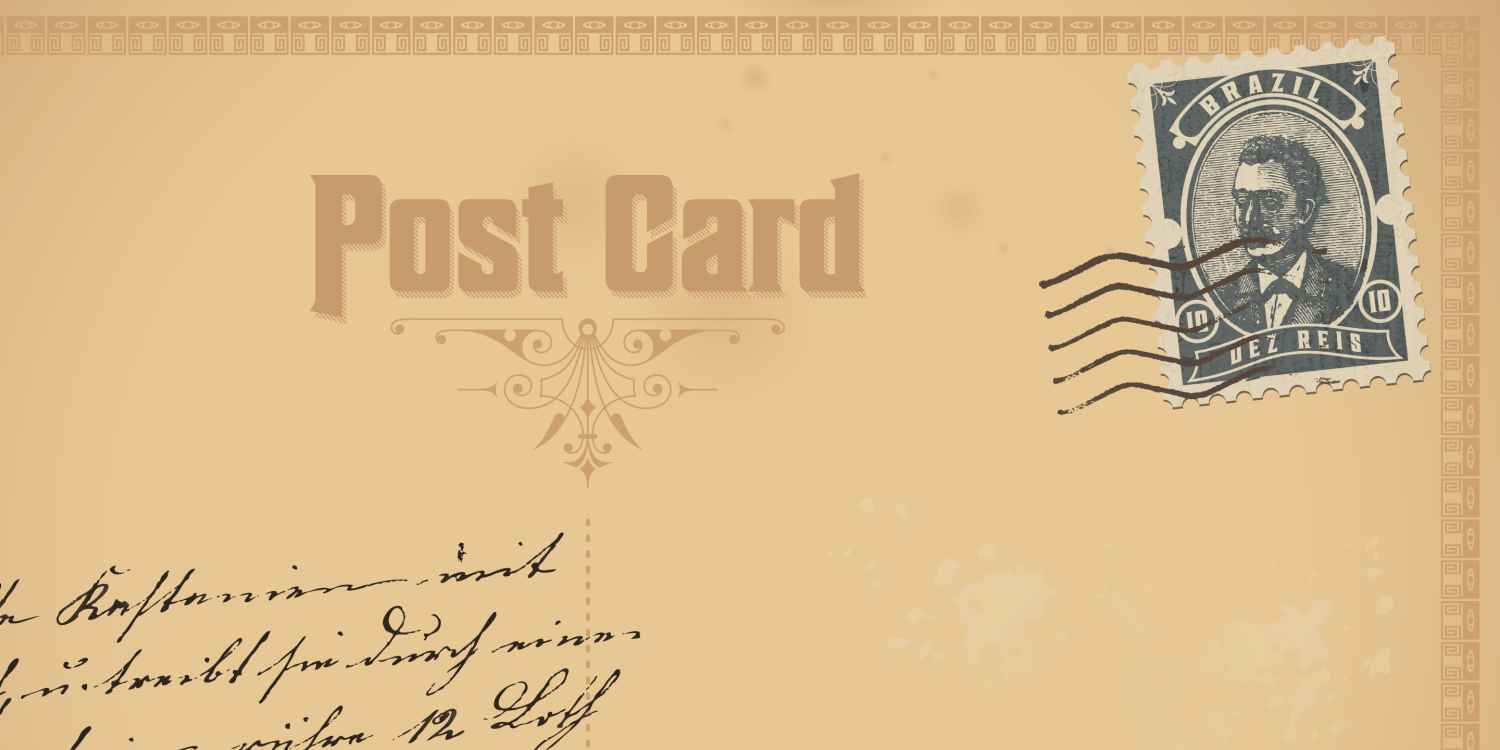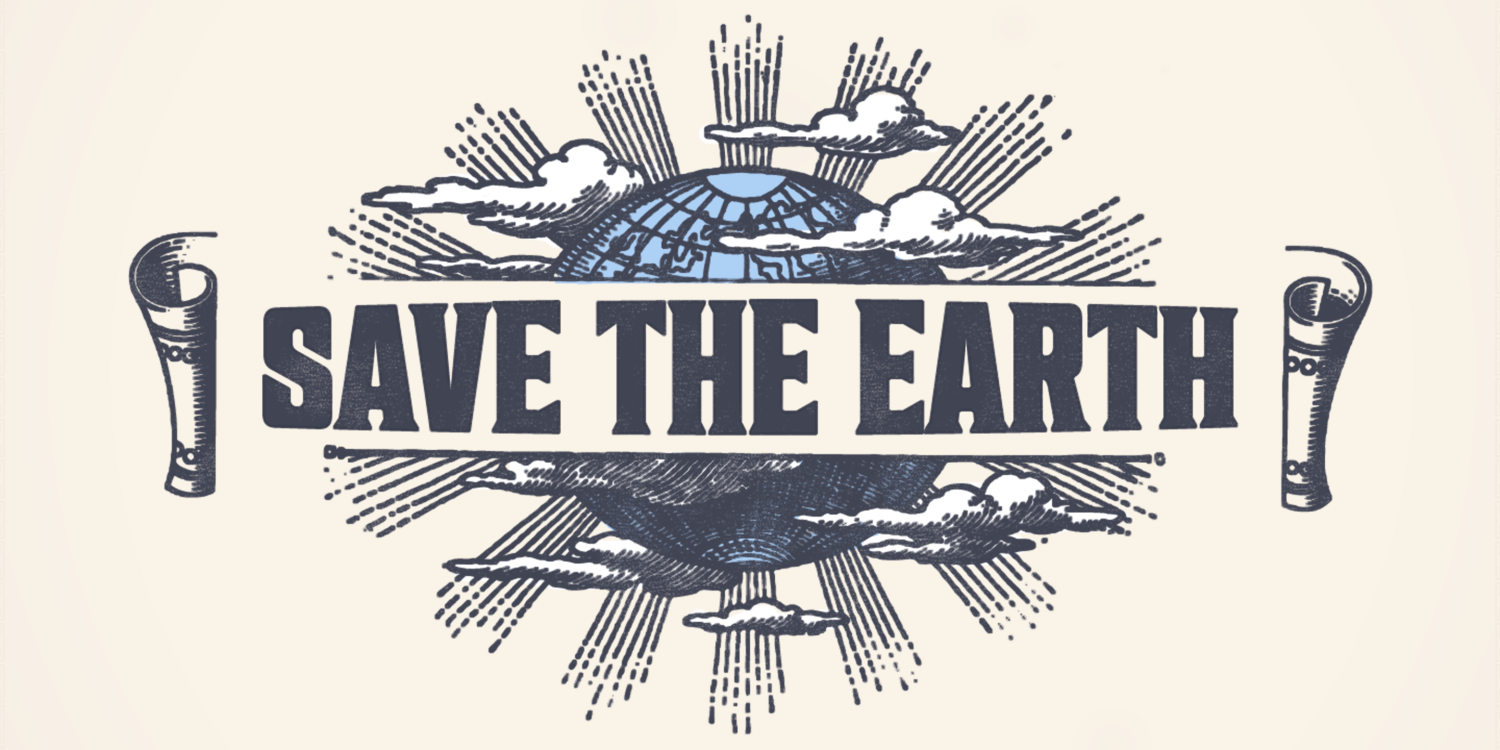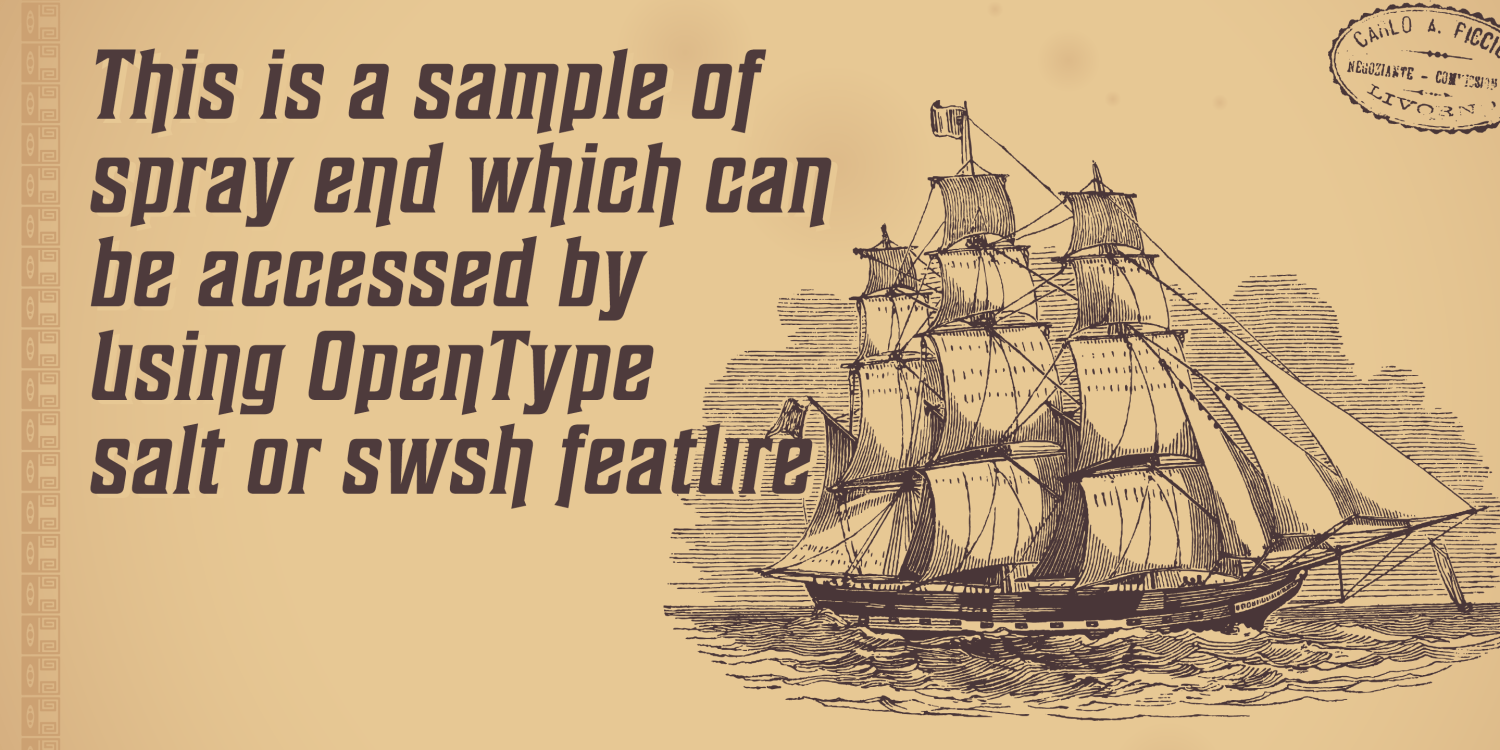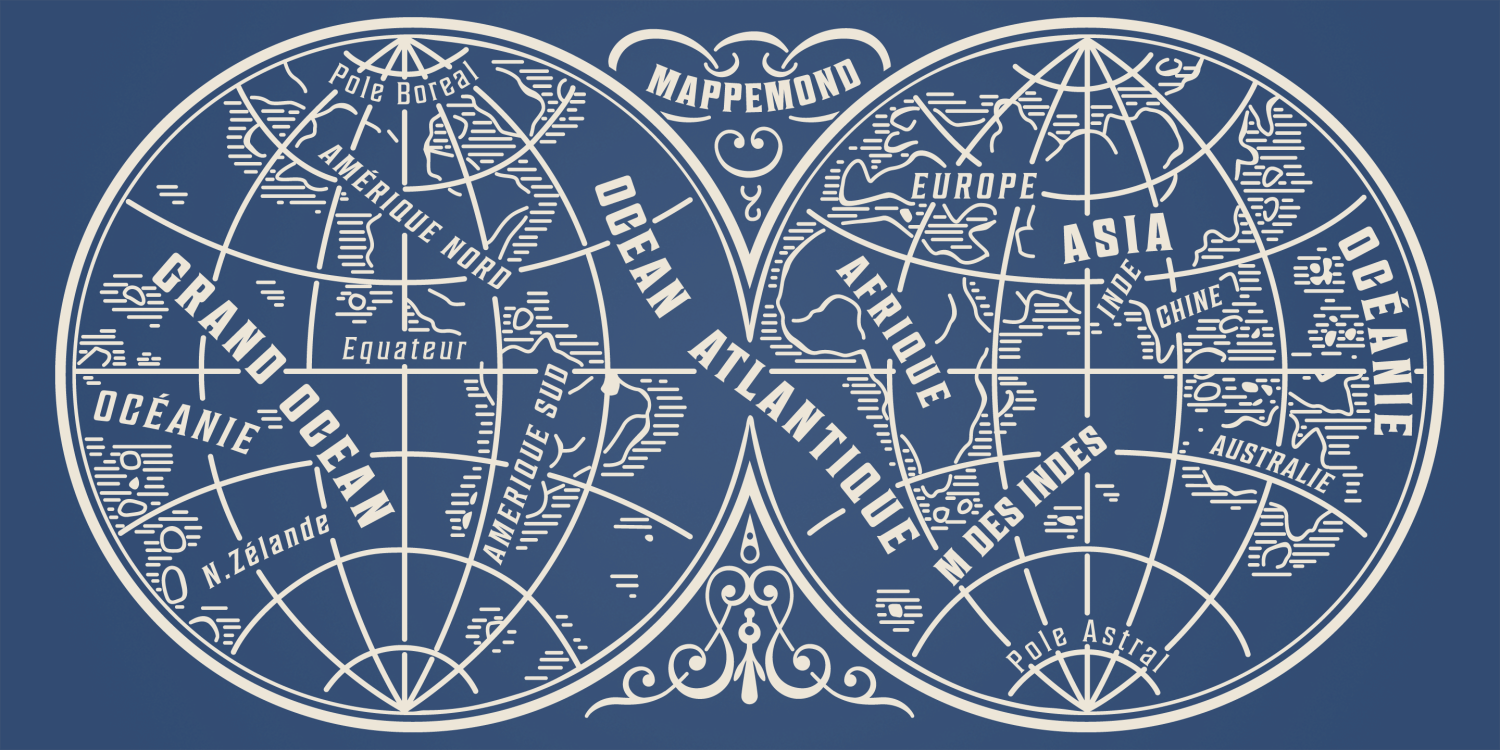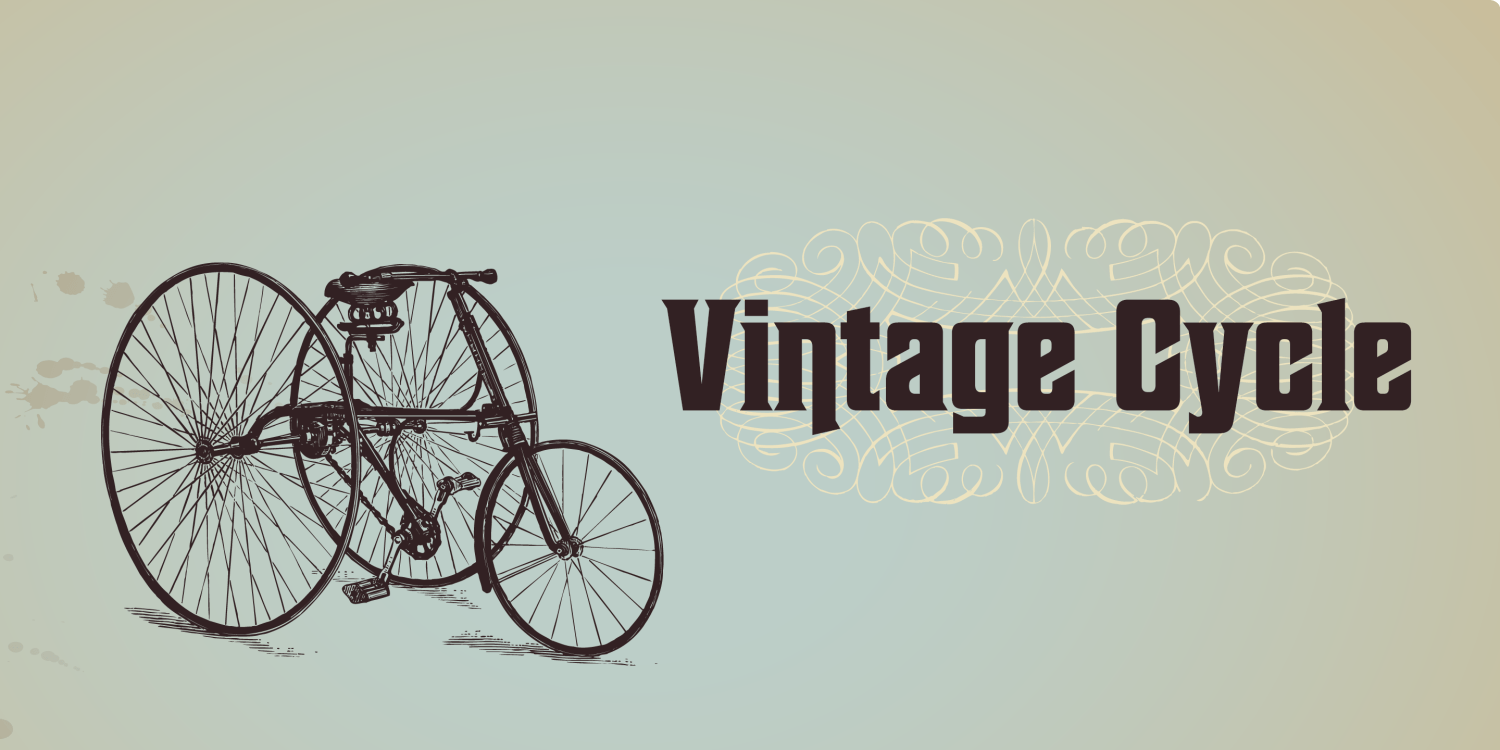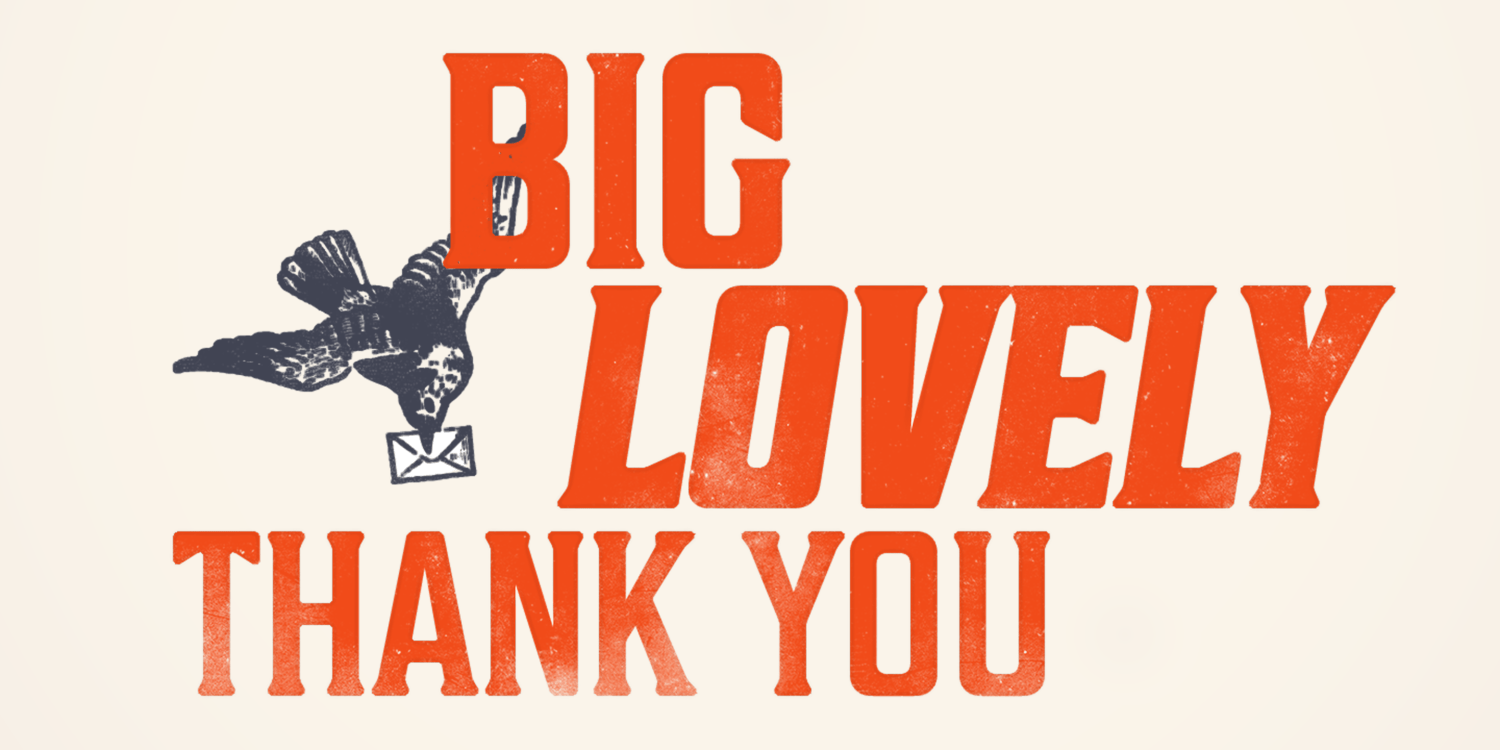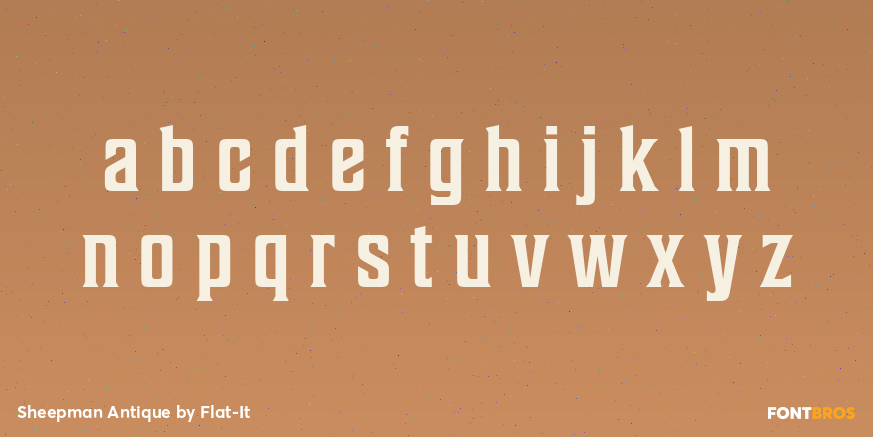
Sheepman Antique
Font Family by Dharma Type
Sheepman is a modern wood type inspired by William Page’s No.506, one of the most iconic wooden typefaces of the 19th century.
While the original featured polygonal shapes, Sheepman softens the design with rounded edges to create a gentler, more natural impression.
Every glyph has been carefully crafted to capture the nostalgic charm of vintage typography while maintaining contemporary usability.
The family includes 3 weights with matching slanted styles, and offers alternate characters for F, H, L, M, N, P, U, f, h, j, m, n, p, q, and u, accessible via OpenType Stylistic Alternates or Swash features.
Sheepman is an ideal choice for posters, titles, and any project in need of vintage-inspired lettering with a soft, approachable feel.